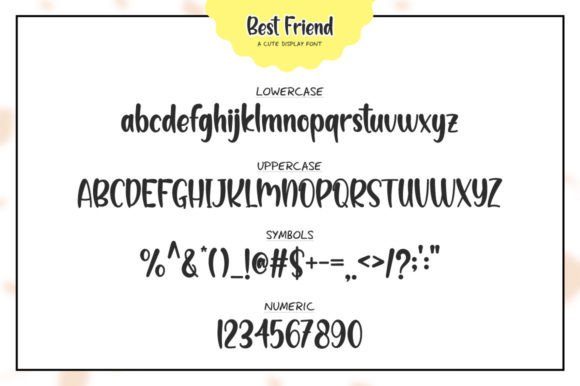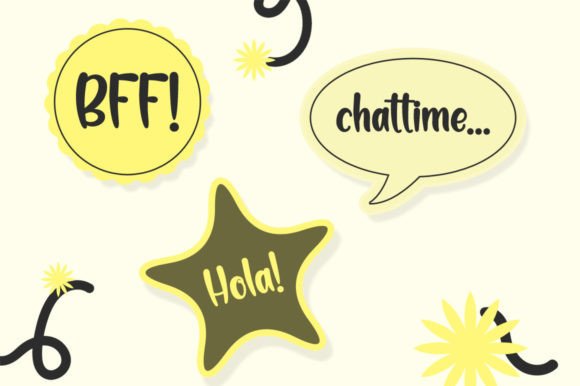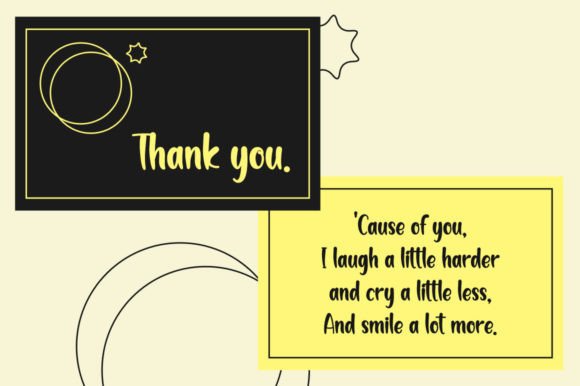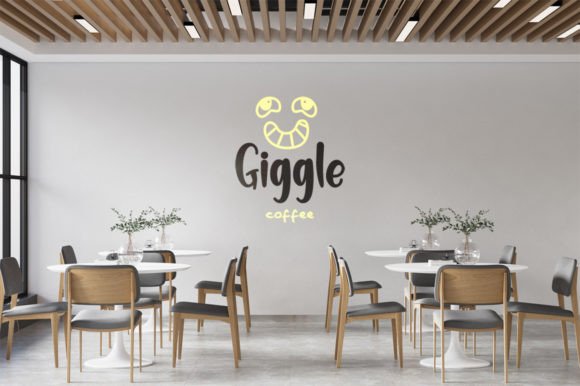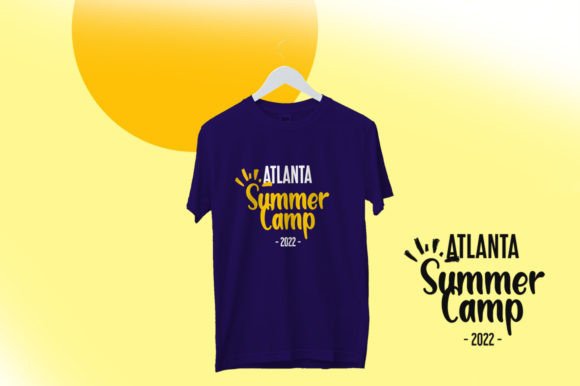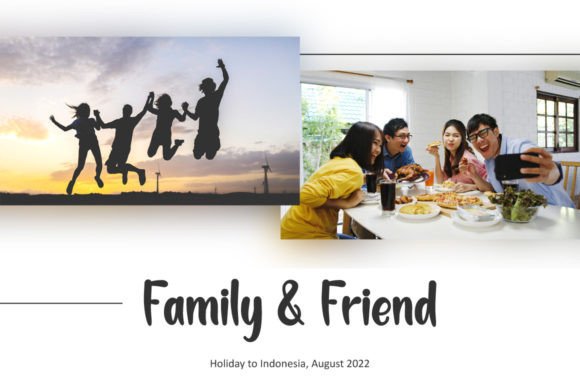
Introducing Best Friend Font: The Perfect Addition to Your Design Collection
Are you tired of using the same old fonts in your designs? Do you want to add a personal touch to your invitations, greeting cards, and logos? Look no further than the Best Friend Font, a fun and smart-looking handwritten font that’s sure to elevate your designs to the next level.
What is Best Friend Font?
Best Friend is a beautifully crafted handwritten font that’s perfect for adding a customized touch to your designs. Its unique and ravishing style makes it ideal for use on invitations, thank you cards, quotes, greeting cards, logos, business cards, and more.
Key Features of Best Friend Font
- Handwritten style: Best Friend Font has a beautiful, handwritten style that’s perfect for adding a personal touch to your designs.
- Smart-looking: This font is not only fun but also smart-looking, making it perfect for use in a variety of design projects.
- Versatile: Best Friend Font can be used on a wide range of design projects, from invitations and greeting cards to logos and business cards.
- Customizable: With Best Friend Font, you can add your own personal touch to your designs and make them truly unique.
Why Choose Best Friend Font?
There are many fonts available for designers and crafters, but Best Friend Font stands out from the rest. Here are just a few reasons why:
- Unique style: Best Friend Font has a unique and eye-catching style that’s sure to make your designs stand out.
- Easy to read: Despite its handwritten style, Best Friend Font is easy to read and understand, making it perfect for use in a variety of design projects.
How to Use Best Friend Font
Using Best Friend Font is easy. Here are just a few ways you can incorporate it into your designs:
- Invitations: Use Best Friend Font to create beautiful and unique invitations for weddings, birthday parties, and other special occasions.
- Greeting cards: Add a personal touch to your greeting cards with Best Friend Font, perfect for holidays, birthdays, and more.
- Logos: Use Best Friend Font to create a custom logo for your business or brand, adding a personal touch to your marketing materials.
- Business cards: Stand out from the crowd with Best Friend Font on your business cards, perfect for networking and making a lasting impression.
Tips and Tricks for Using Best Friend Font
Here are a few tips and tricks for getting the most out of Best Friend Font:
- Experiment with colors: Best Friend Font looks great in a variety of colors, so don’t be afraid to experiment and find the perfect color for your design.
- Mix and match: Combine Best Friend Font with other fonts and design elements to create a unique and eye-catching design.
- Keep it simple: Don’t overcomplicate your design. Keep it simple and let Best Friend Font be the star of the show.
| Font Name | Best Friend Font |
| Author | Nirmala Creative |